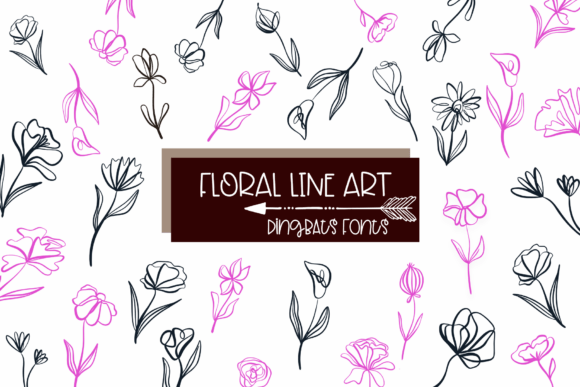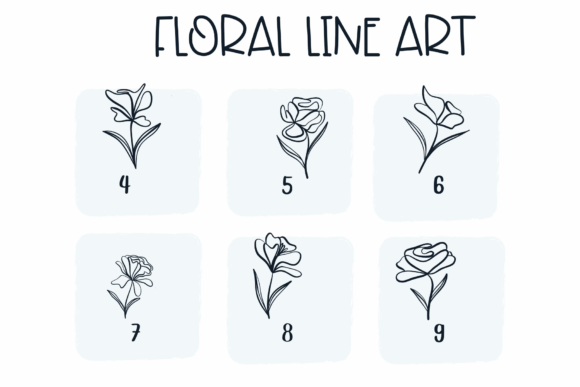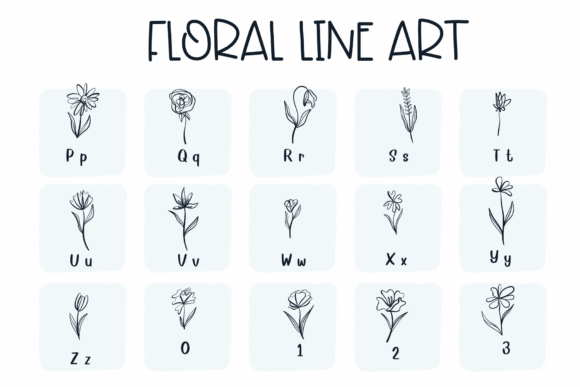
Floral Line Art Font: A Cute Dingbat for Wedding & DIY Crafts!
About the Floral Line Art Font
Introducing the Floral Line Art Font, a beautifully crafted typeface designed to elevate your creative projects. Floral line art is a dingbats font with a cute theme. This font can enhance your creative projects such as wedding invitations, DIY, crafts, decorations, logos, and many other creative ideas.
Its playful, delicate nature makes it ideal for projects requiring a touch of whimsy, such as branding for boutiques, children’s products, or wedding stationery. It excels in headlines, short text blocks, and logos, adding a charming decorative element. Avoid using it for body copy or UI elements; the thin lines and intricate details would prove difficult to read at smaller sizes.
Floral Line Art pairs well with clean sans-serif fonts like Open Sans or Lato for a balanced contrast, or a more playful script like Pacifico for a consistently whimsical aesthetic. Consider pairing it with a geometric sans-serif for a modern twist, or a classic serif like Garamond for a touch of sophisticated elegance.
The overall personality is cheerful and lighthearted, making it unsuitable for serious or corporate applications. However, for projects requiring a delicate, hand-drawn feel, this font provides a unique and charming visual touch.
Floral Line Art Font Usage Examples
Floral Line Art Font Example